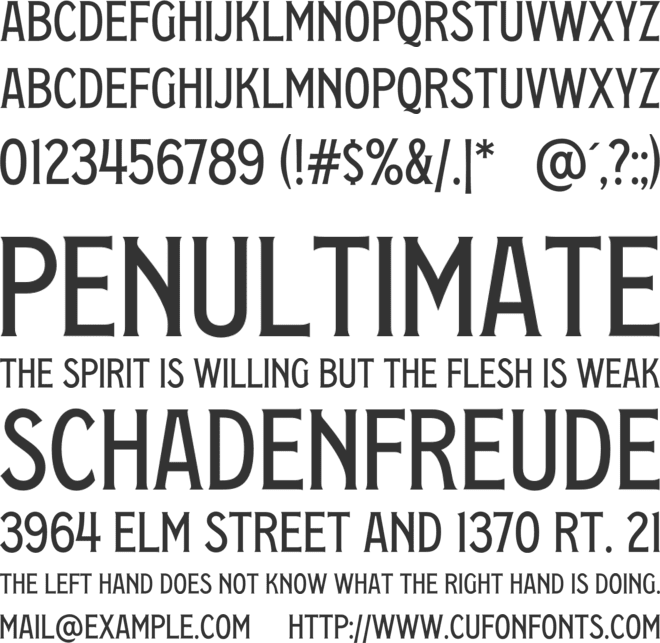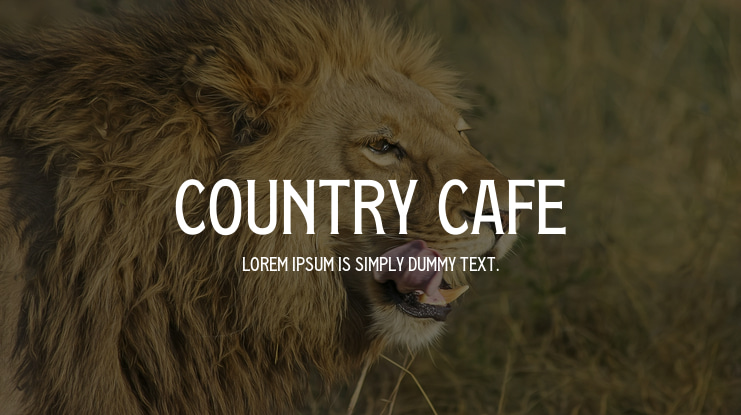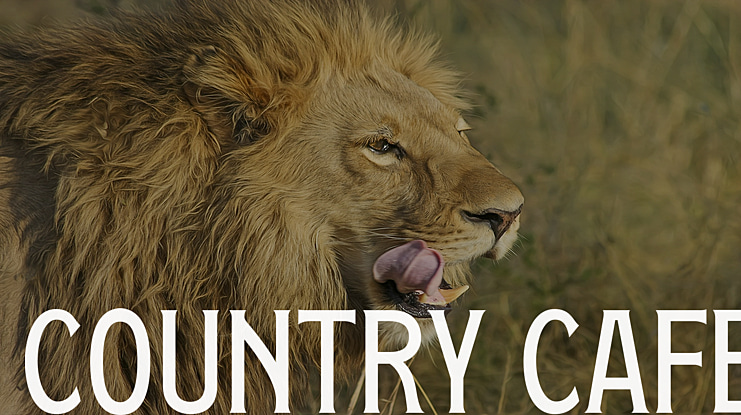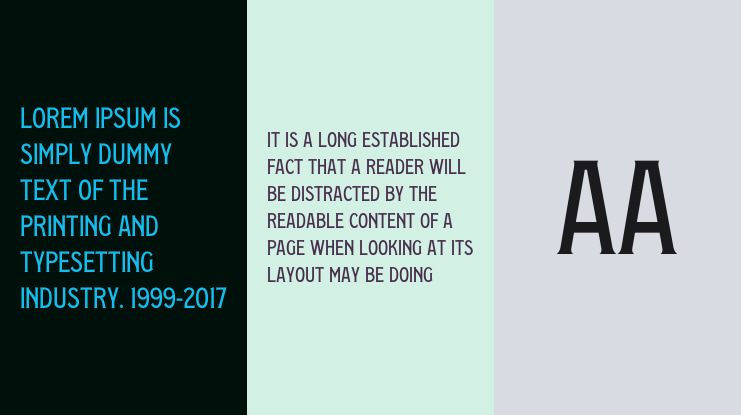
Country Cafe Font
This font is based on an old hand-lettered sign. My free version is all uppercase. It is for personal use only. Upgrading to my premium version of this font allows for commercial use, has upper and lowercase characters, light, regular and bold weights, and a wide range of punctuation and accented characters. Find it here for only $15: https://www.etsy.com/listing/705568372/country-cafe-font-light-regular-bold-otf